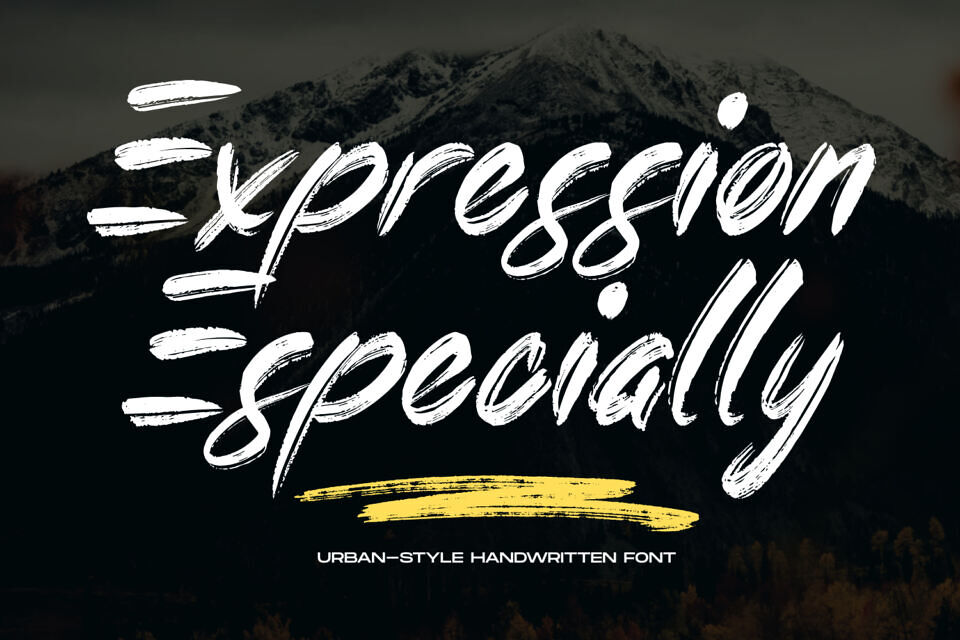
Expression Especially is An Energetic Urban-Style Handwritten Brush font designed to make a powerful impact. This font captures the essence of bold brush strokes or marker writing, featuring textured lines, expressive curves, and an energetic flow that commands attention.
Perfect for urban-themed designs, impactful headlines, trendy apparel, bold posters, social media graphics, modern branding, and any project needing a dose of raw energy and contemporary edge. Expression Especially brings an authentic, handcrafted feel to your typography.